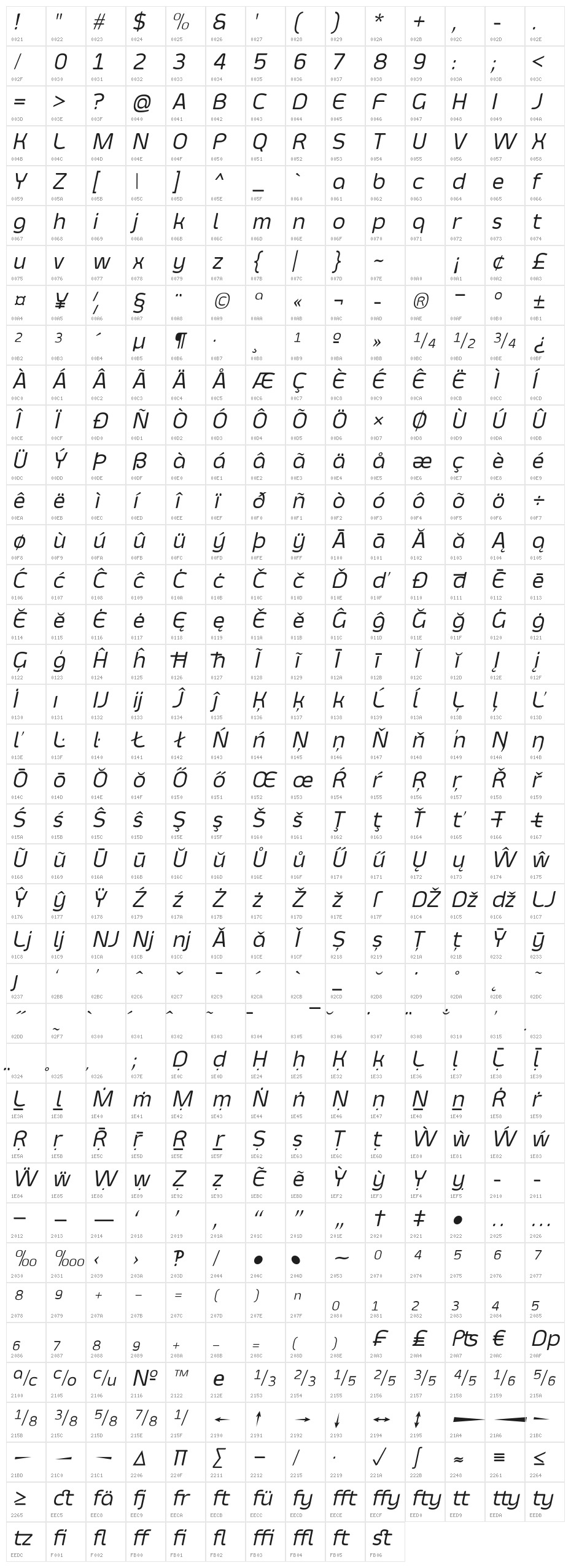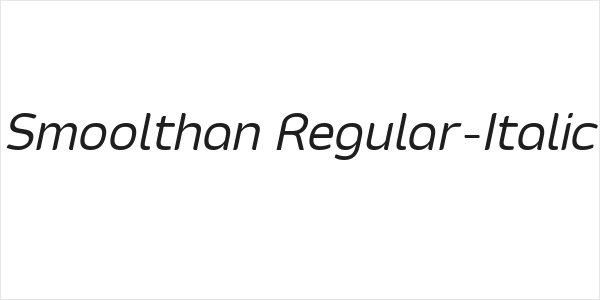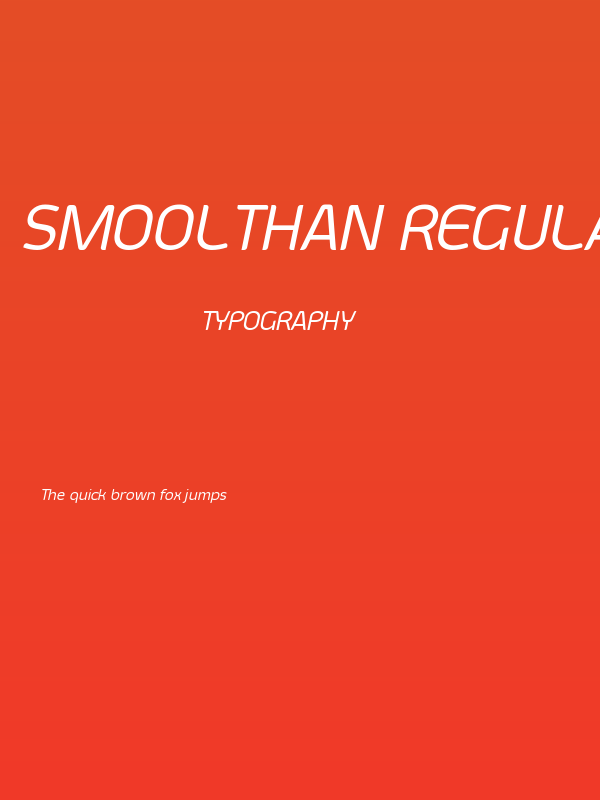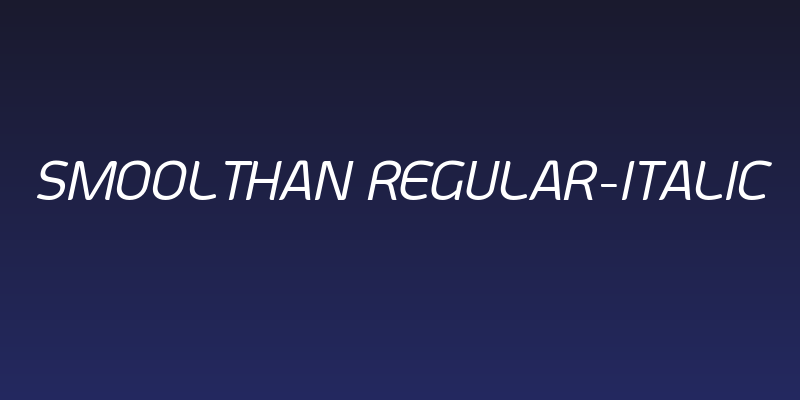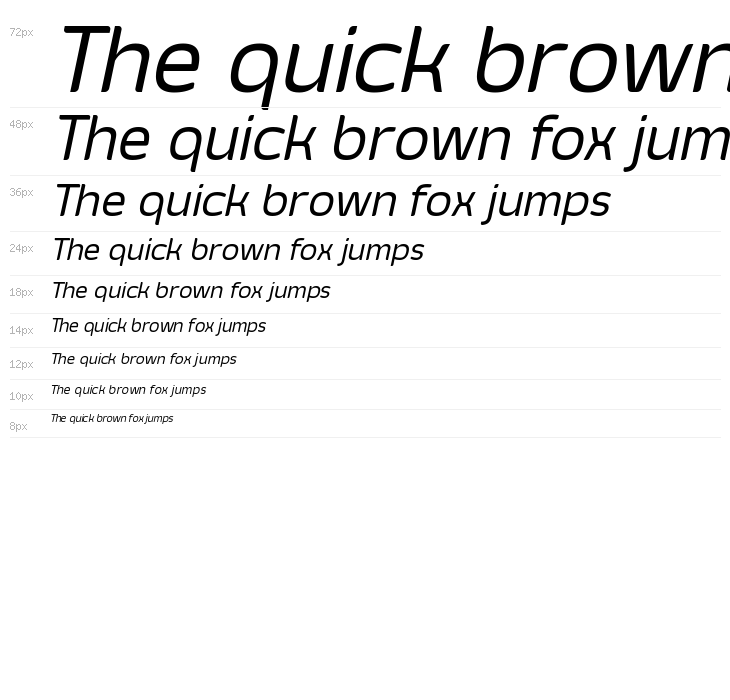
Smoolthan Regular-Italic Font
Smoolthan Regular-Italic Description
This font features a sleek, modern design with a slight italic slant, giving it a dynamic and fluid appearance. The characters are sans-serif, contributing to a clean and contemporary look. The strokes are consistent in weight, providing a uniform and balanced aesthetic. The font maintains a normal width, ensuring readability while adding a touch of elegance. The character spacing is slightly tight, which enhances the cohesive feel of the text. The overall style is modern, making it suitable for a variety of digital and print applications.
| Proposed Projects | Ideal for branding, advertising, digital interfaces, and editorial design where a modern and clean aesthetic is desired. |